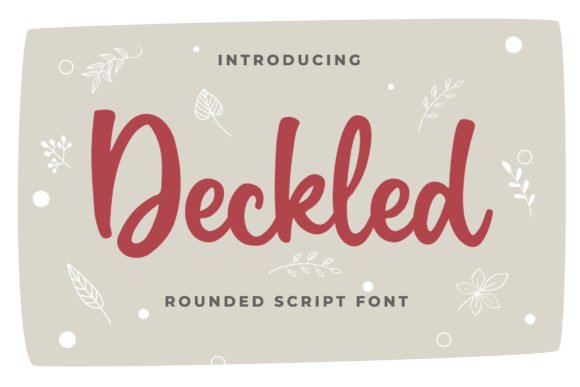
Introduction to Deckled Font
Deckled is a beautiful brushed handwritten font.
Flowing and smooth, this font will be a major hit for each of the designs that you wish to develop .
Deckled Font offers exceptional quality and versatility, making it a valuable addition to your design toolkit. Whether you’re creating for personal projects or commercial use, Deckled Font delivers professional results.